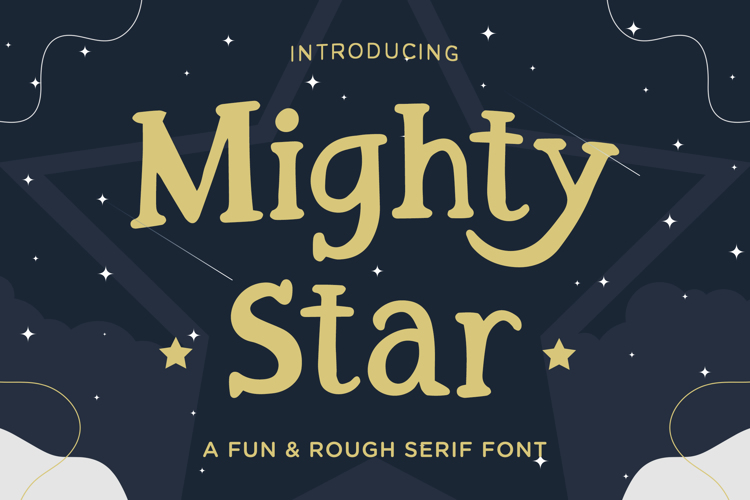
Mighty Star Trial Font
About Mighty Star Trial Font
Mighty Star is a fun and rough serif font useful for a wide variety of designs, its charming look will definitely make your crafts more fabulous!